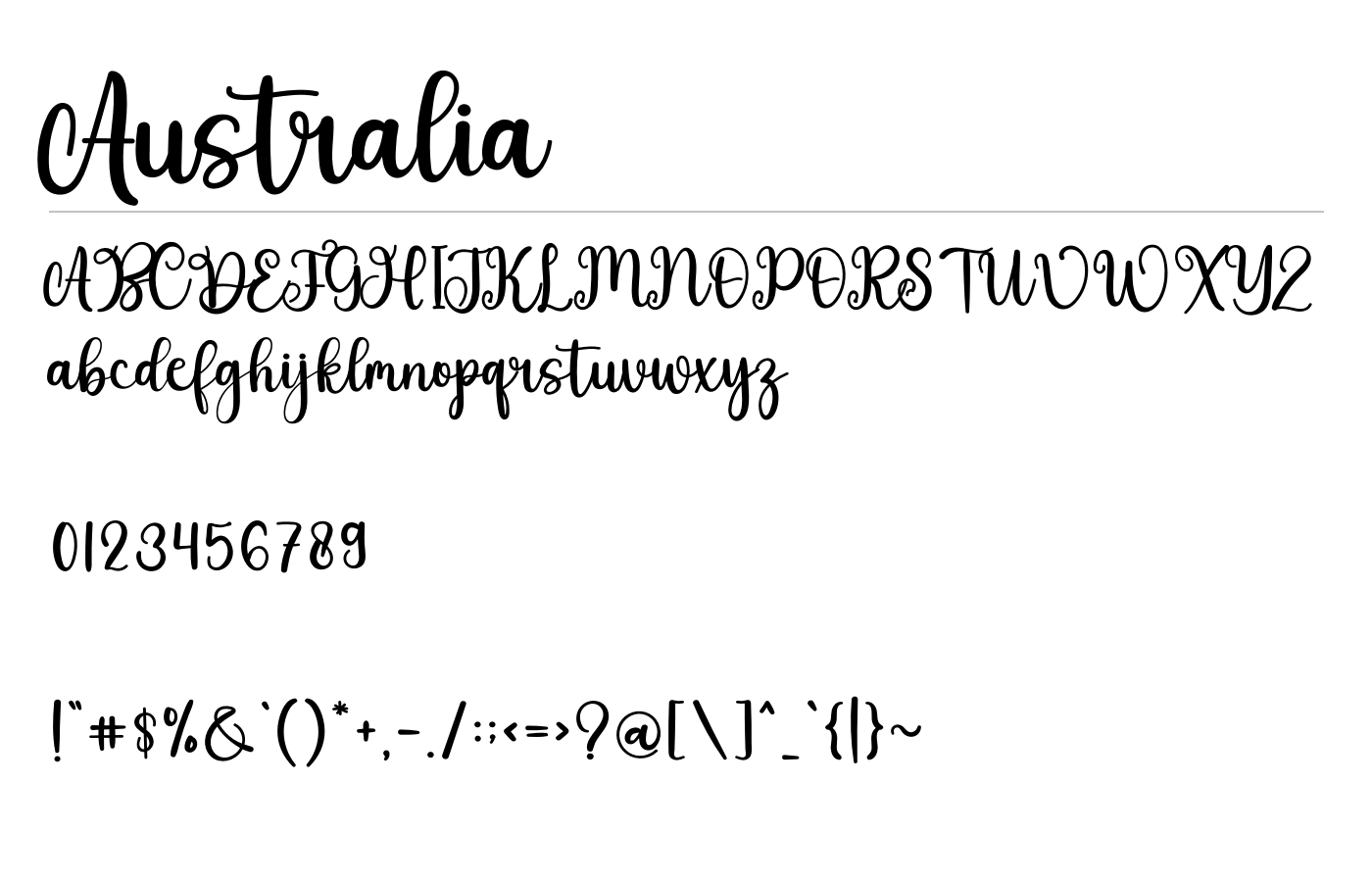
Australia Font is a playful and elegant script typeface with smooth, flowing strokes and a lively personality. Its handwritten style features well-balanced curves and unique letterforms that add charm and warmth, making it ideal for creative projects, invitations, and branding that seek a friendly and inviting touch. This font works well in decorative uses where a personal, artistic feel is desired.
Australia Font